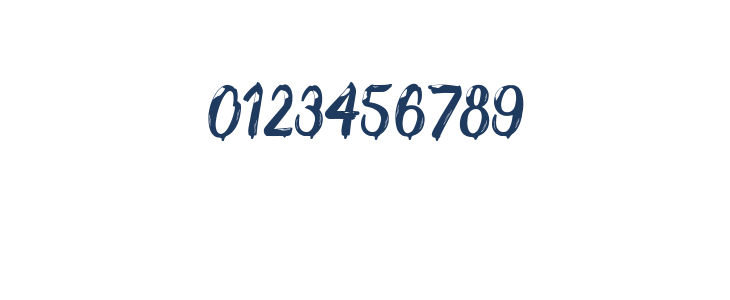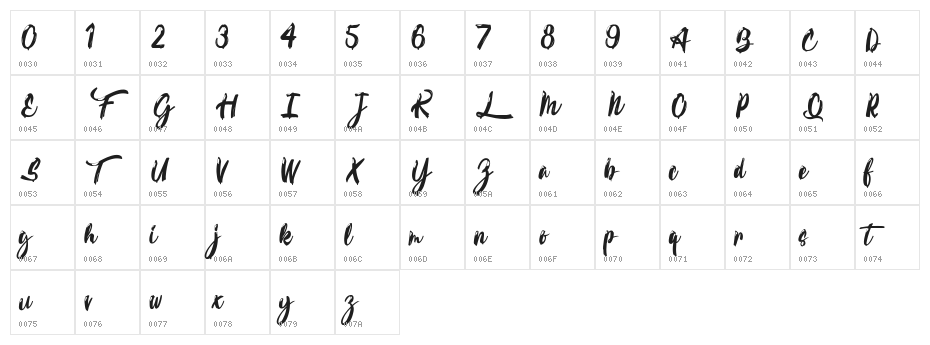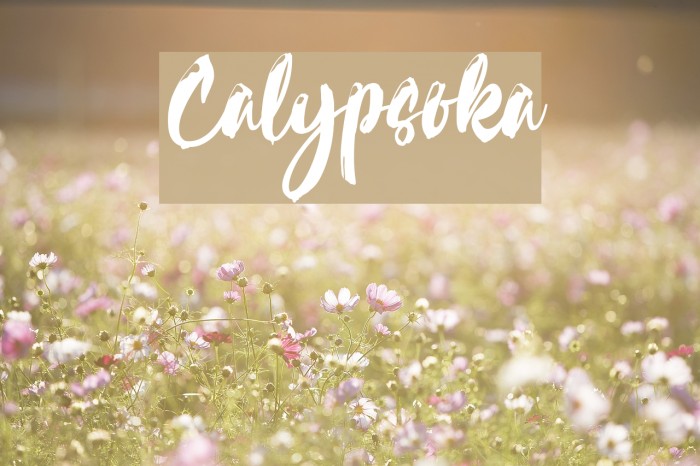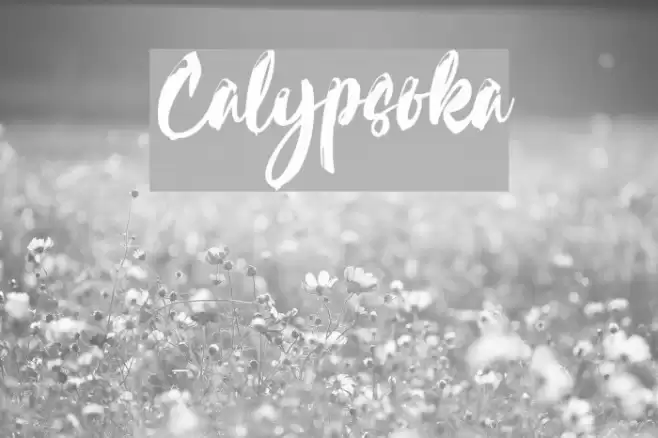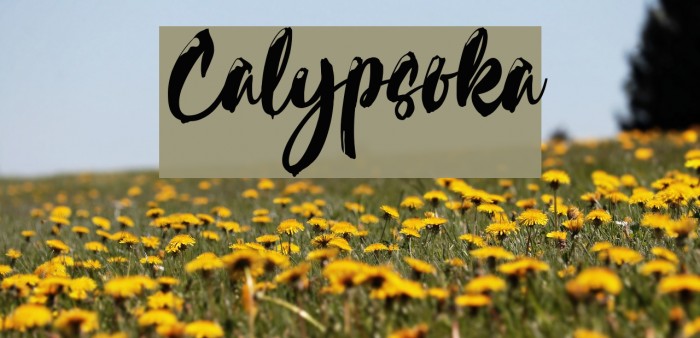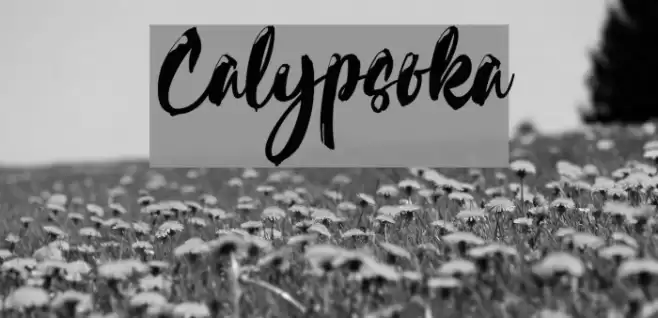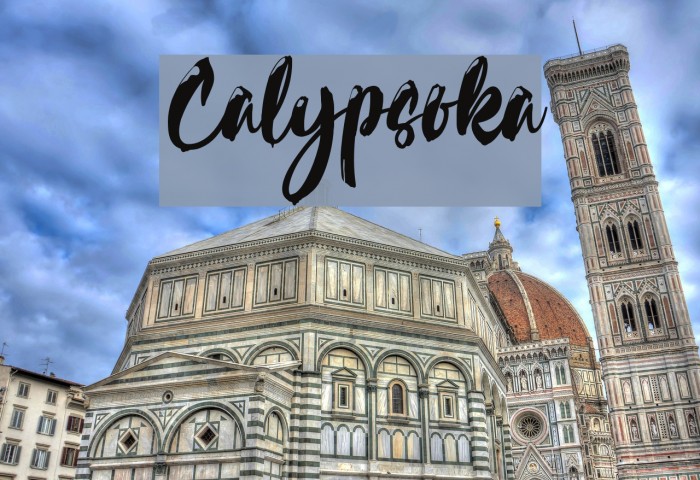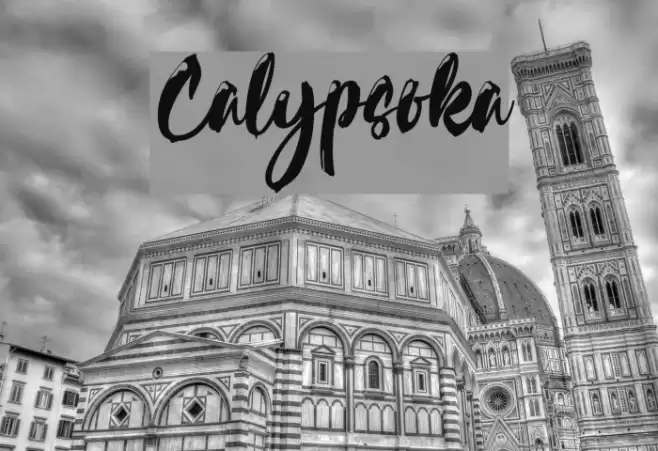
Calypsoka Font
Calypsoka Description
This font exudes a dynamic and expressive style, characterized by its bold, brush-like strokes that convey a sense of movement and energy. The uppercase letters are particularly striking, with their sweeping curves and dramatic flourishes, while the lowercase letters maintain a more fluid and connected appearance, enhancing the handwritten feel. The numerals are equally bold, ensuring they stand out clearly. This font's unique style is further accentuated by its varying stroke thickness, which adds depth and a touch of artistic flair. The overall design is both modern and playful, making it suitable for a variety of creative applications.